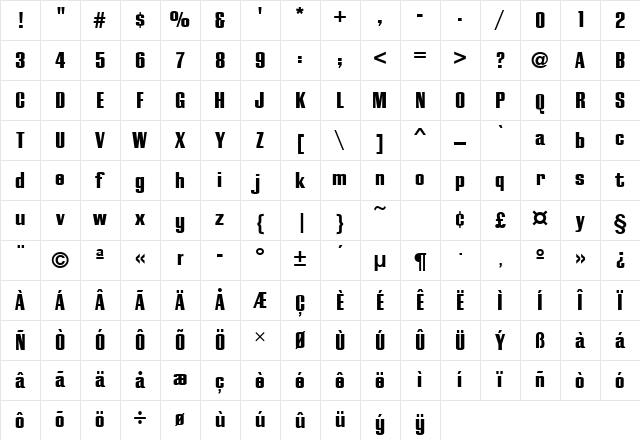
CaliforniaGroURWTBla Regular
Design Context for CaliforniaGroURWTBla
CaliforniaGroURWTBla is a composed and adaptable typeface that performs quietly and consistently across a wide range of design contexts.